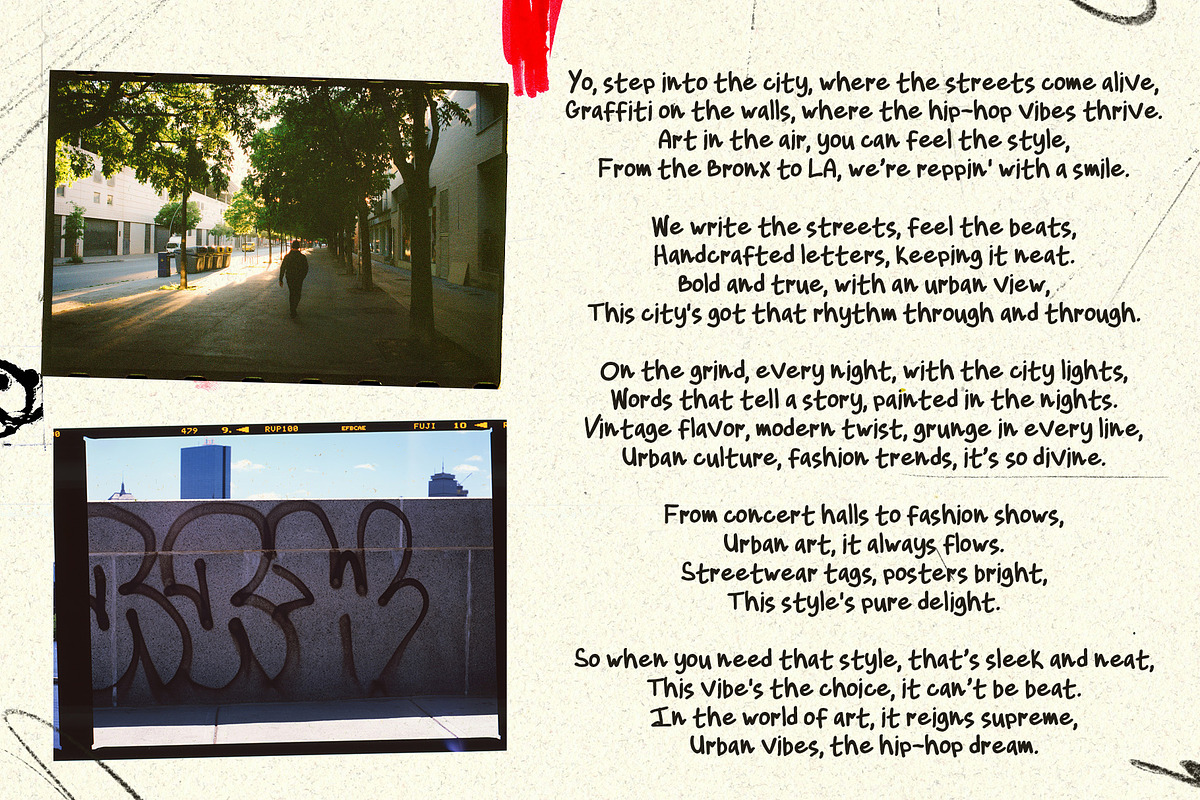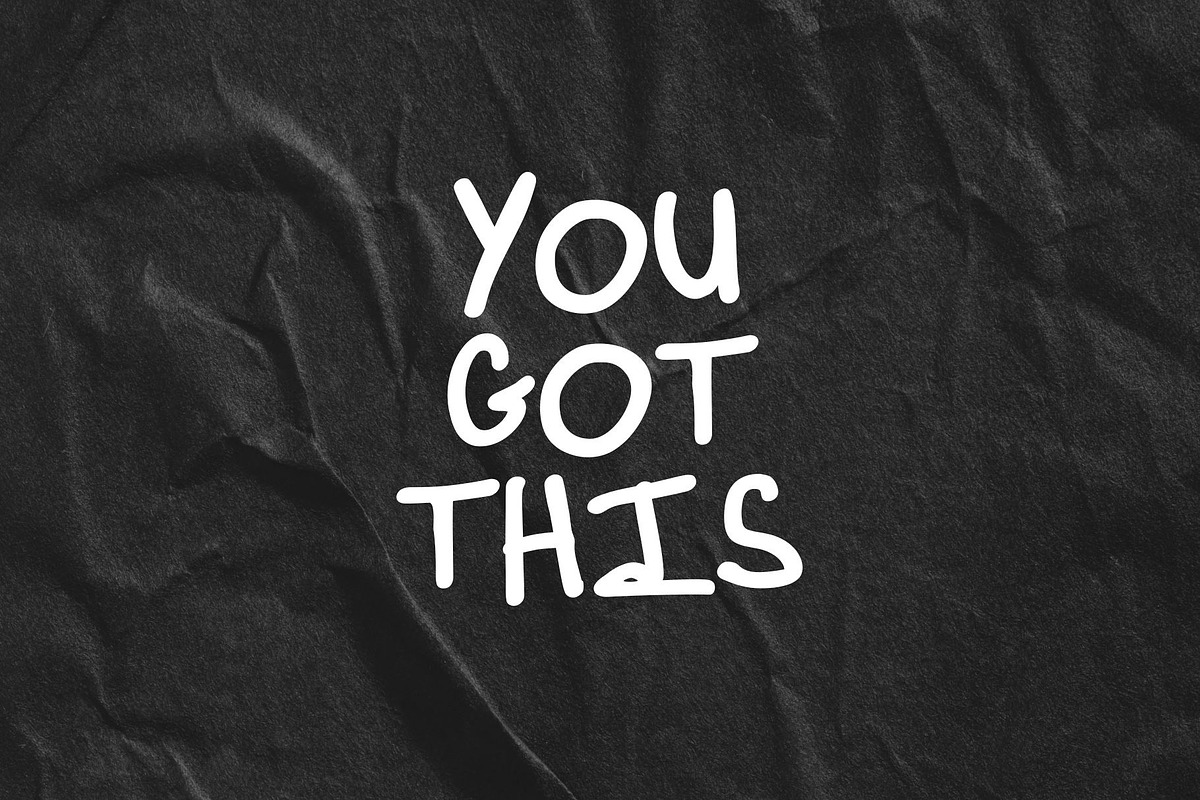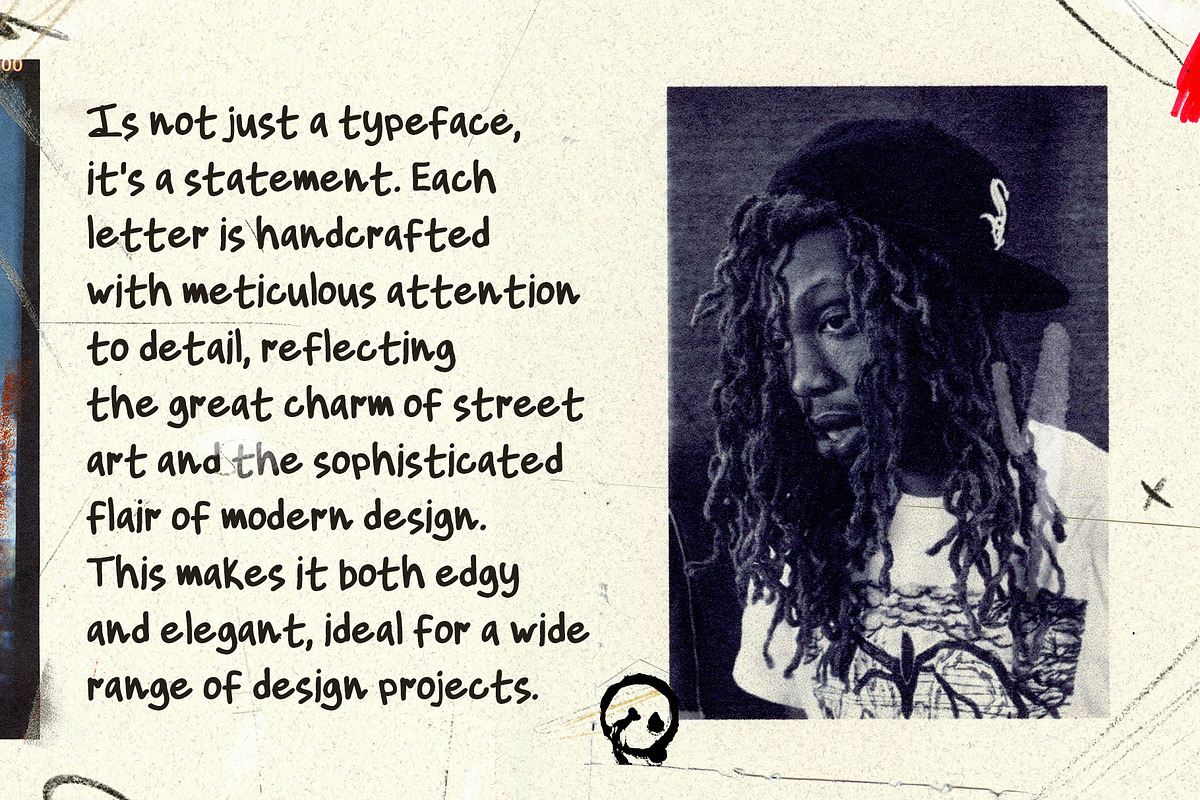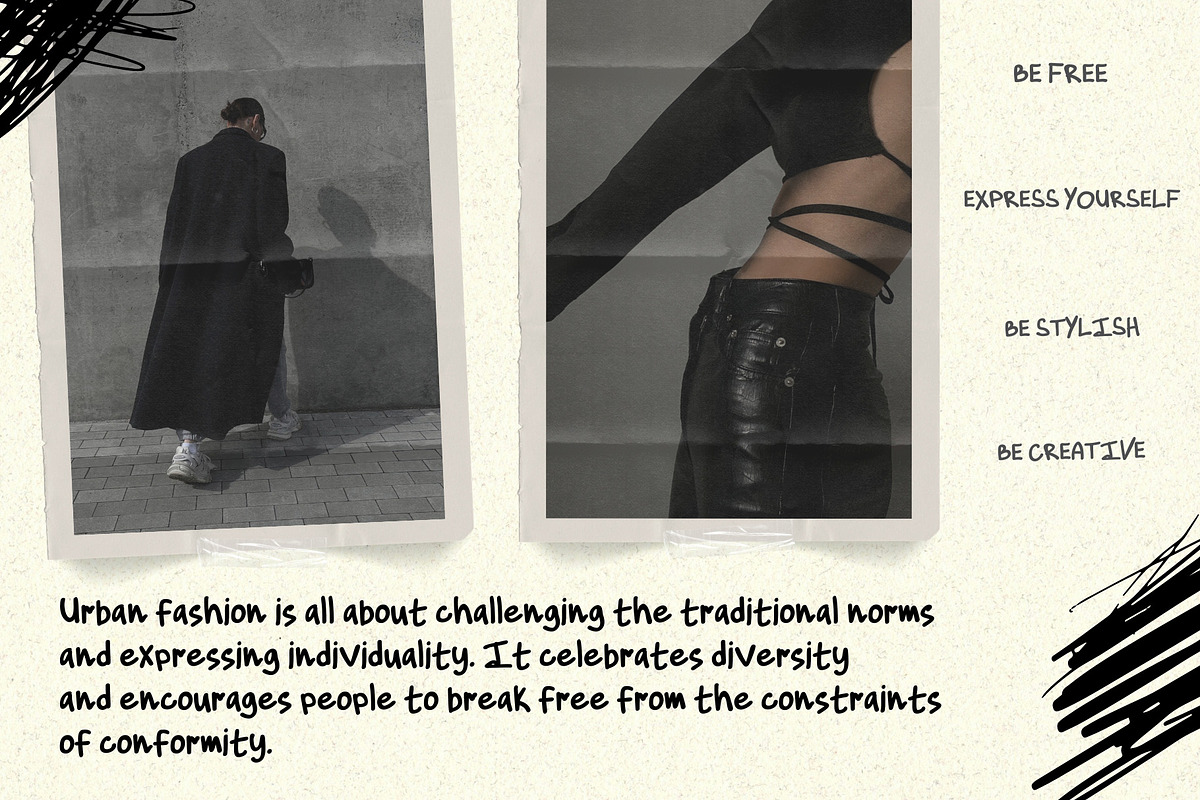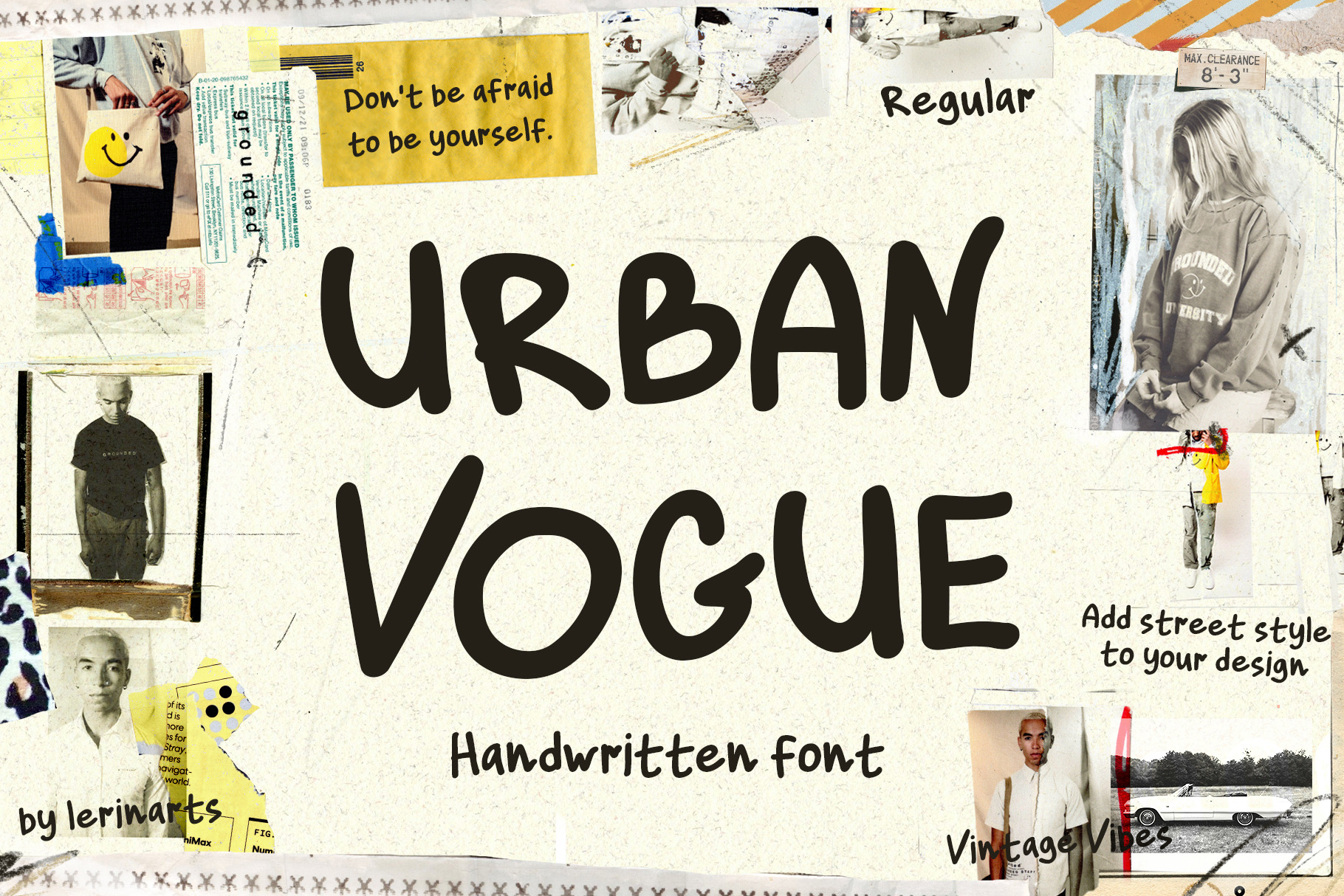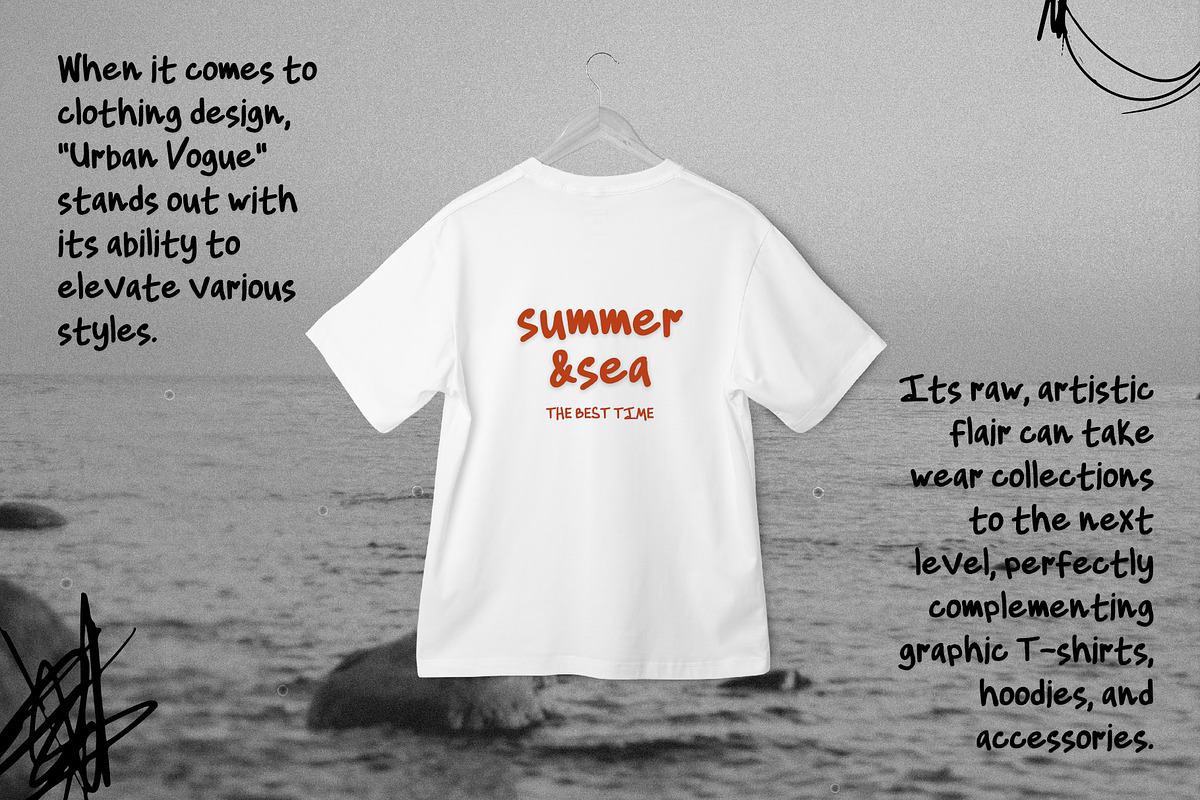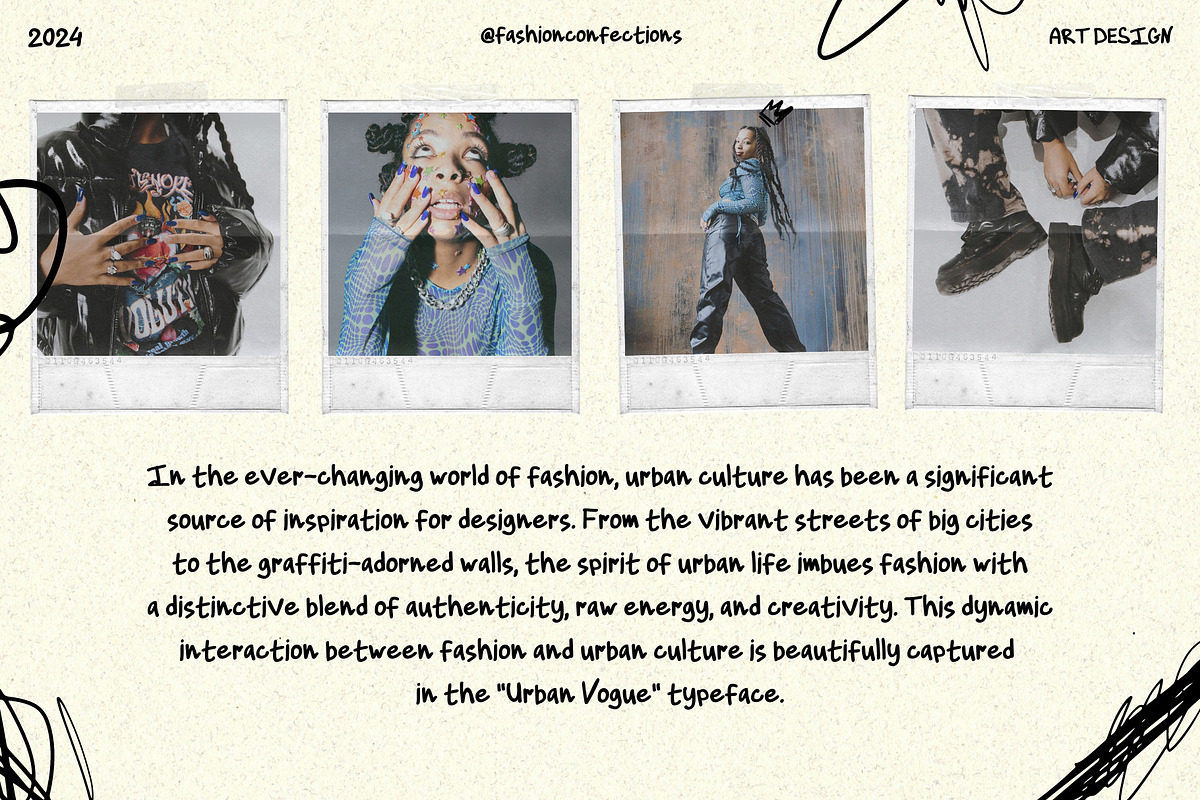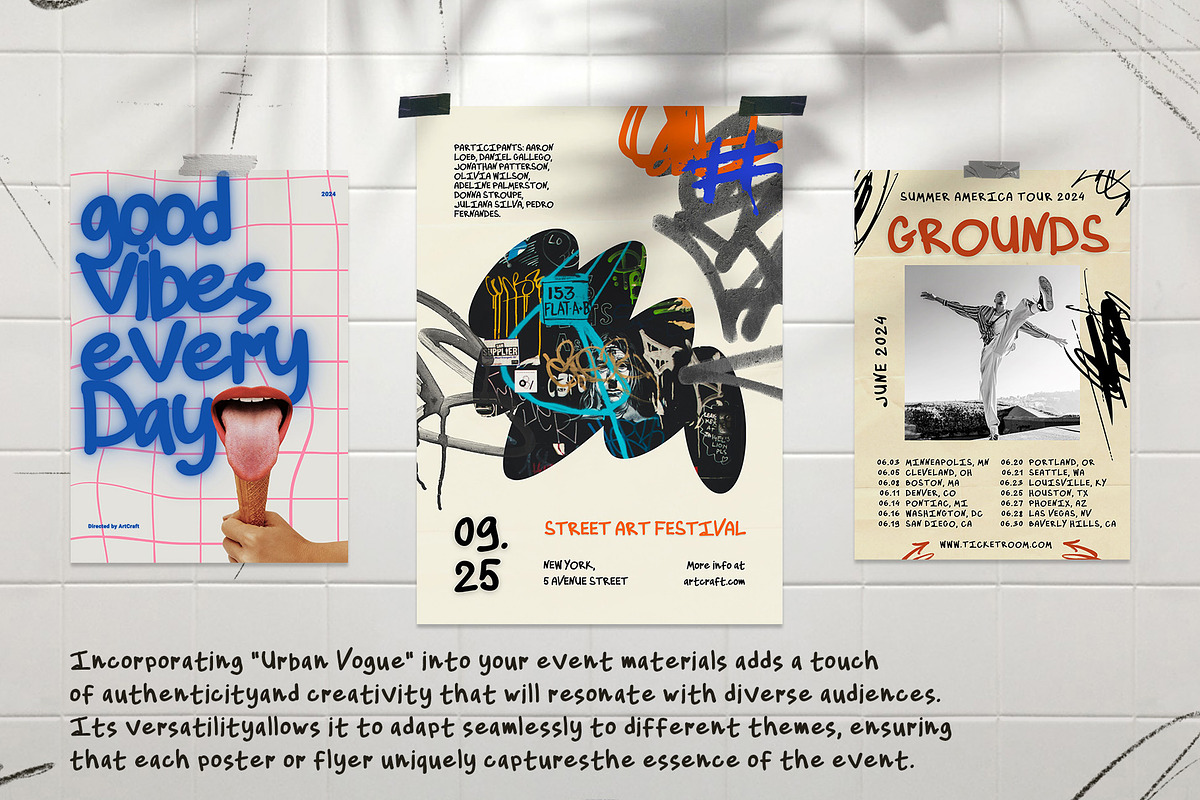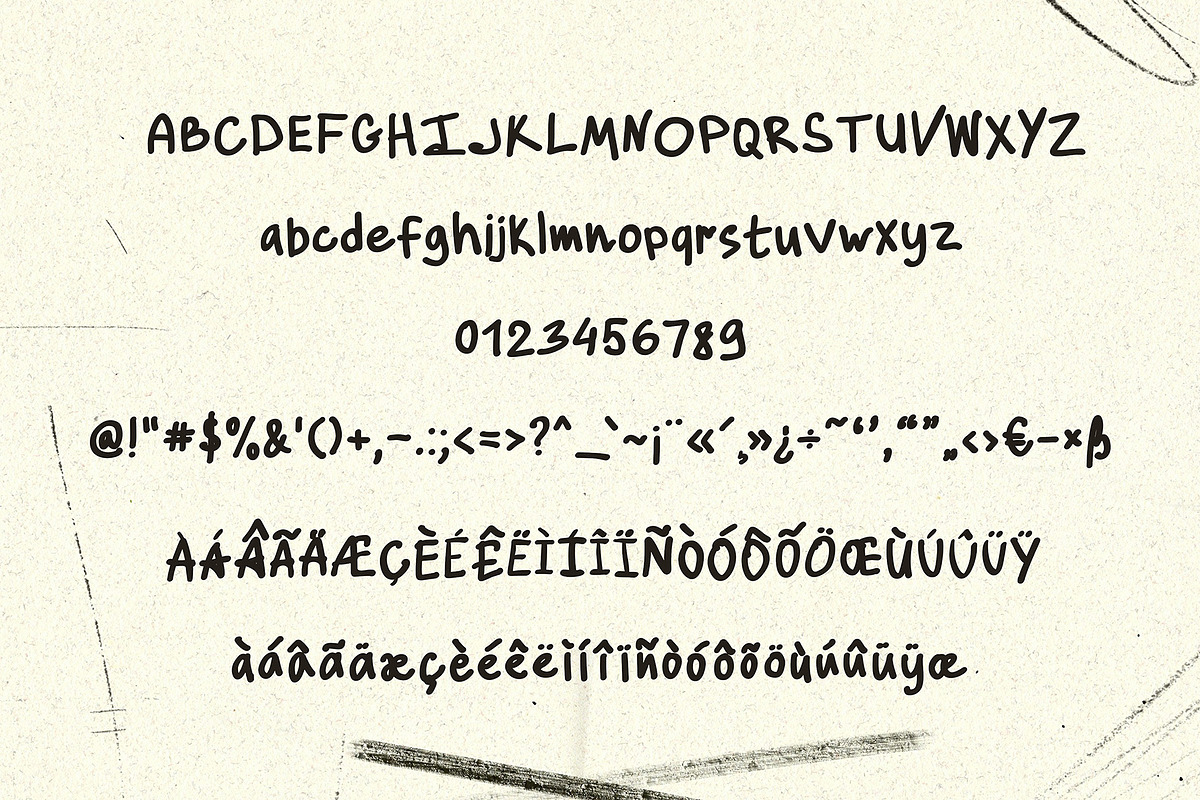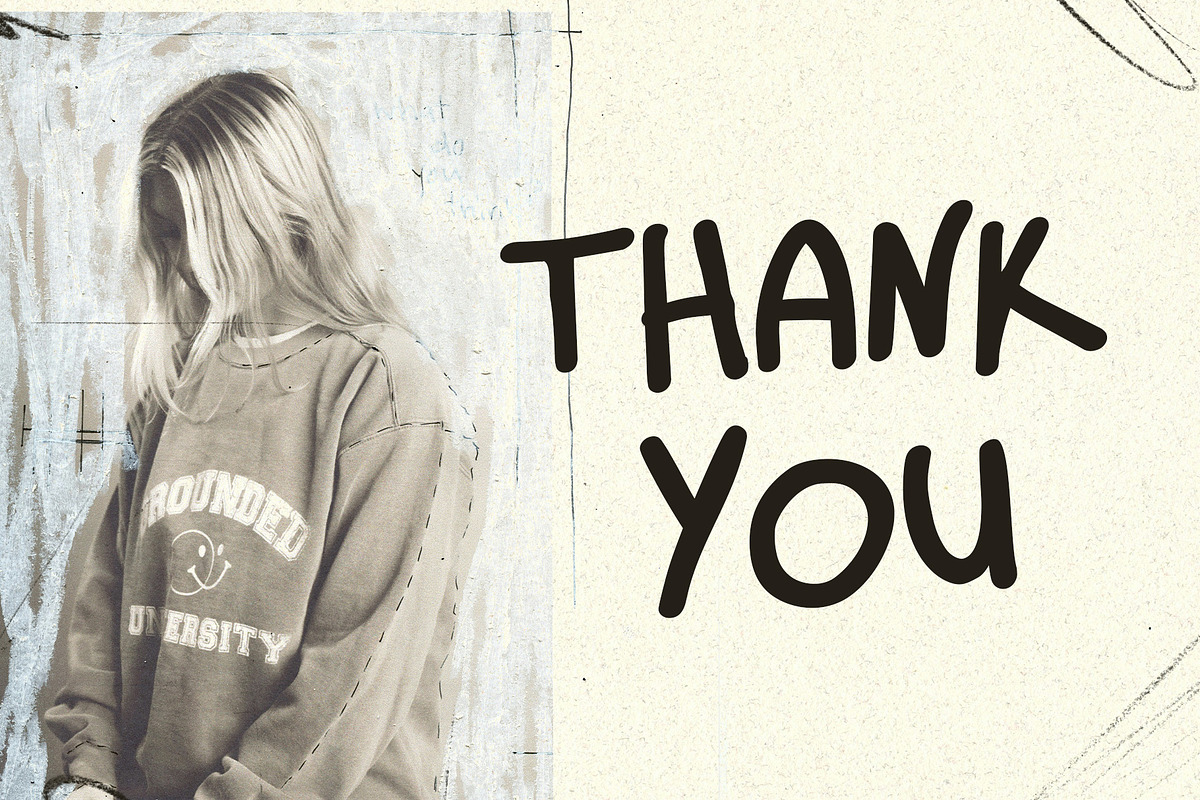
URBAN VOGUE: Handwritten font
"Urban Vogue" a handcrafted font that perfectly balances free charm and modern elegance. Designed with meticulous attention to detail, this typeface captures the raw energy and creativity making it a standout choice for your design projects.
Is perfect for logos, posters, album covers, and other where a blend of urban authenticity and contemporary style is desired with vintage effect.